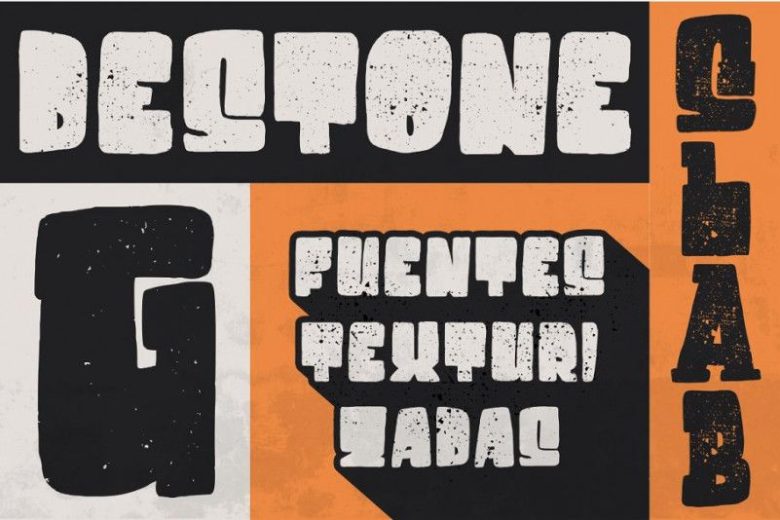
Destone Display Font
It’s combines fun fonts that will easily turn any design idea into a stand out! Fall in love with this adorable and versatile font family! Destone Display design and shared by Garisman Std.
It’s combines attractive curves with a fresh urban edge; delivering a stylish script which is guaranteed to add an eye-catching appeal to your logo designs, brand imagery, handwritten quotes, product packaging, merchandise & social media posts